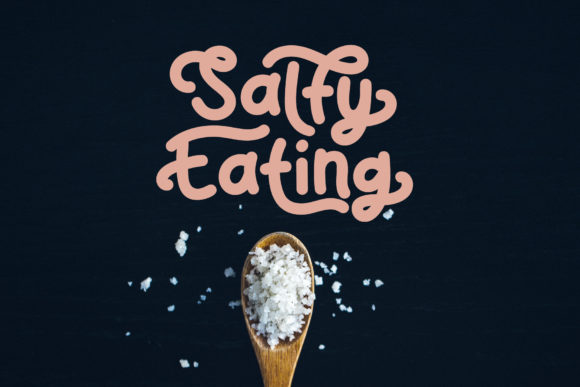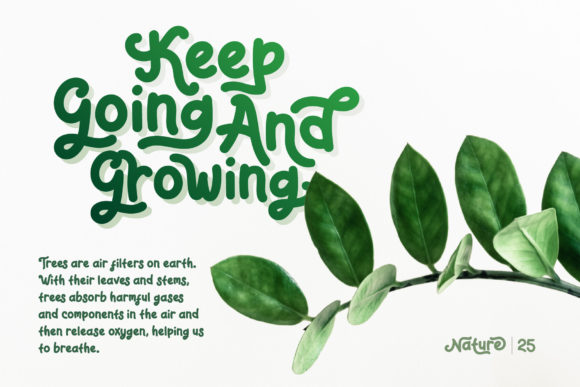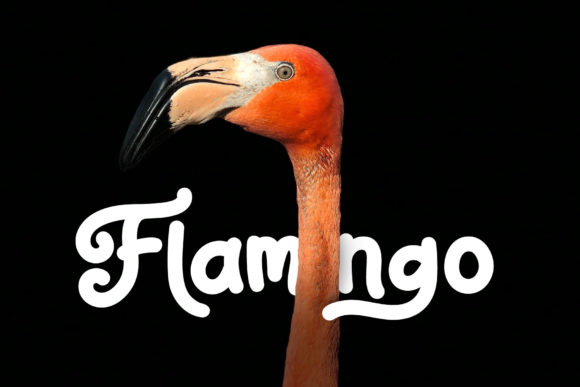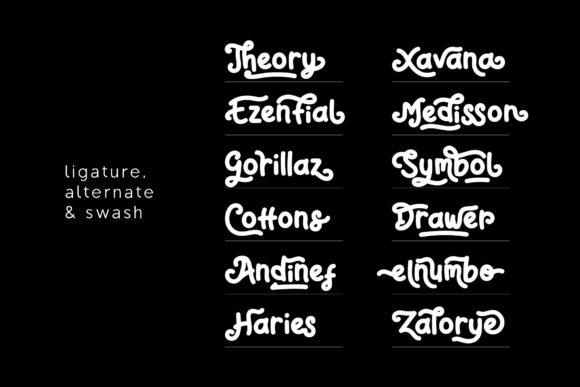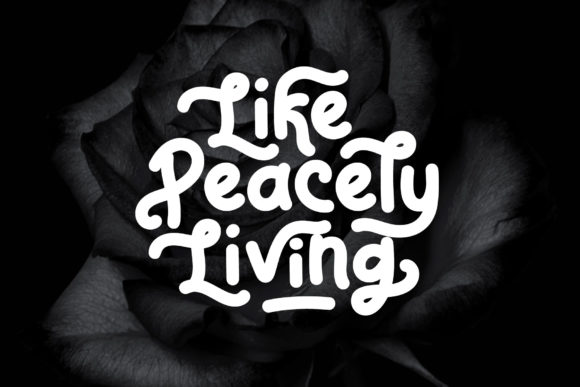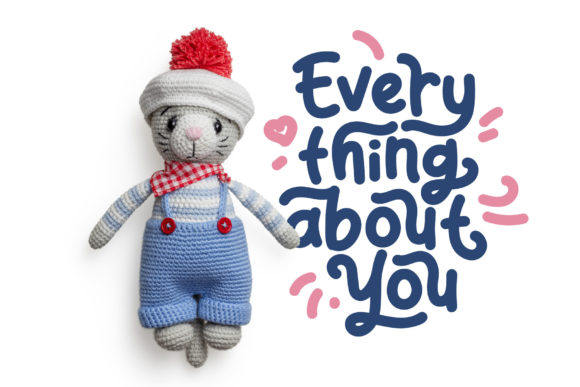
Introduction to Reaf Singer Font Font
Fonts play a crucial role in design, and the Reaf Singer Font font is a typeface that brings both character and versatility to any project. Whether you’re working on a branding project, a website, or a print design, the Reaf Singer Font font offers a unique style that can elevate your work.
Reaf Singer is a trendy and whimsical display font.
It will look stunning on any food menu, poster, flyer or print Use this font for your designs and explore its endless possibilities.
Key Features of Reaf Singer Font Font
Why Choose Reaf Singer Font Font?
The Reaf Singer Font font is more than just a typeface – it’s a design tool that helps you communicate your message with style and clarity. Its unique character set and versatile design make it suitable for a wide range of applications, from elegant invitations to bold headlines.
With its carefully crafted letterforms and balanced proportions, the Reaf Singer Font font ensures readability and visual appeal across all mediums.
What makes Reaf Singer Font font special?
The Reaf Singer Font font stands out with its unique design, exceptional readability, and versatility across various design applications.